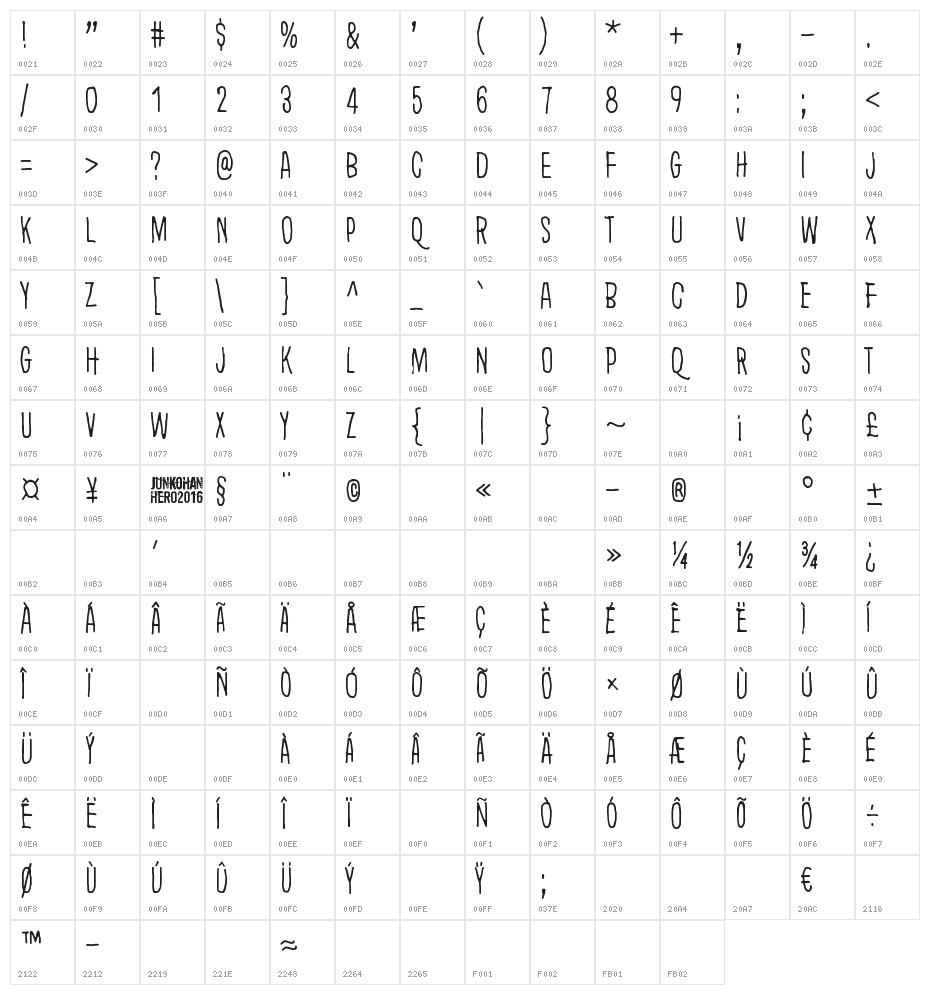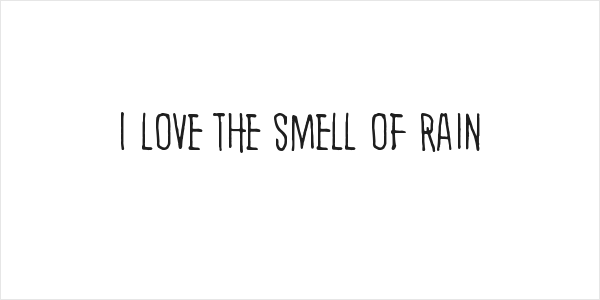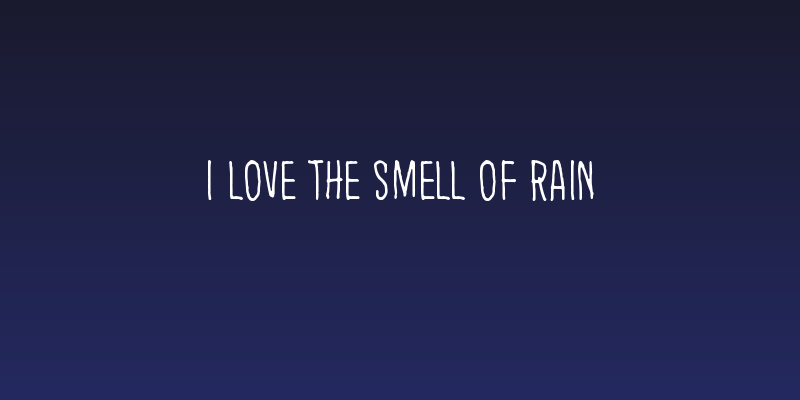
I love the smell of rain Font
I love the smell of rain Description
This font features a playful and hand-drawn aesthetic, characterized by its uneven strokes and organic feel. The letters are tall and slightly narrow, with a casual, informal style that suggests a handwritten touch. The uppercase and lowercase letters maintain a consistent style, with a slightly whimsical appearance. The numbers and special characters complement the alphabet with the same hand-drawn quality, adding to the font's overall charm. This font is ideal for projects that require a personal, approachable, and creative look.